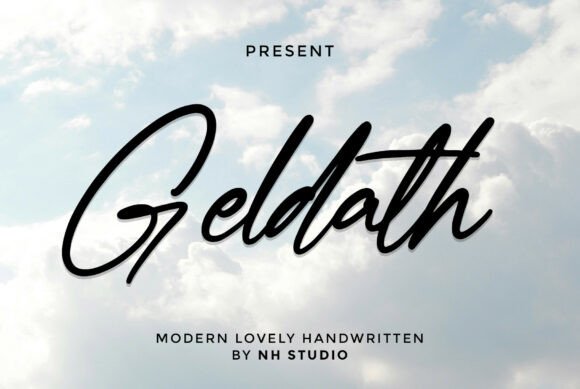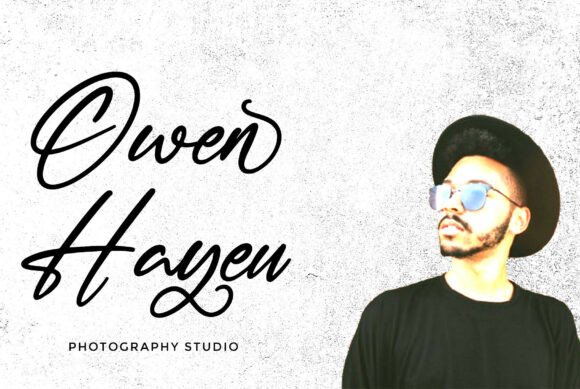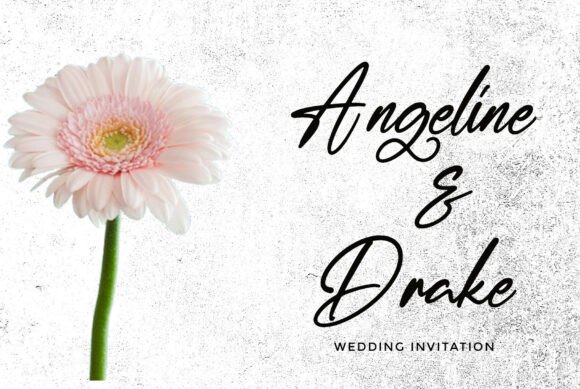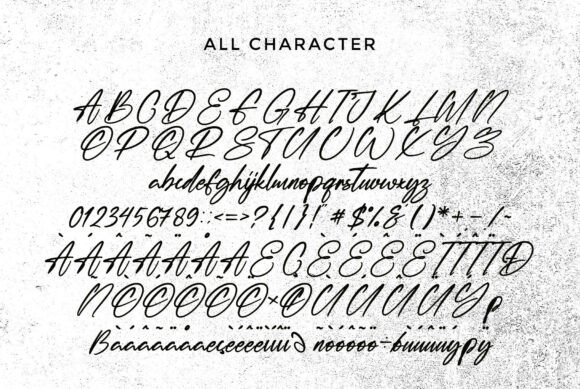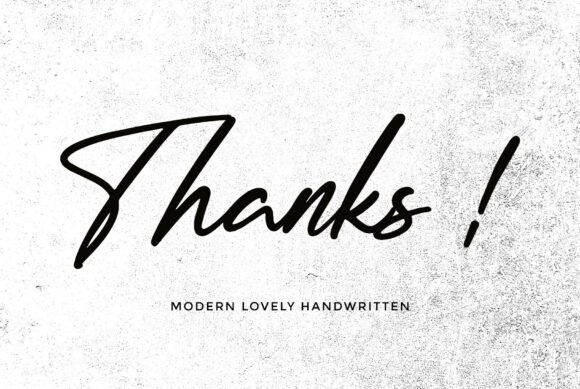
Introduction to Geldath Font
Geldath is a modern handwritten font that combines elegance with a personal touch.
| 👤 Author | NH Studio |
Its smooth, flowing lines and stylish strokes make it ideal for a wide range of creative projects where a soft, contemporary look is desired ✨ Geldath Font Key Features: Modern handwritten style: Looks like a neat and stylish pen-written script.
Key Features of Geldath Font